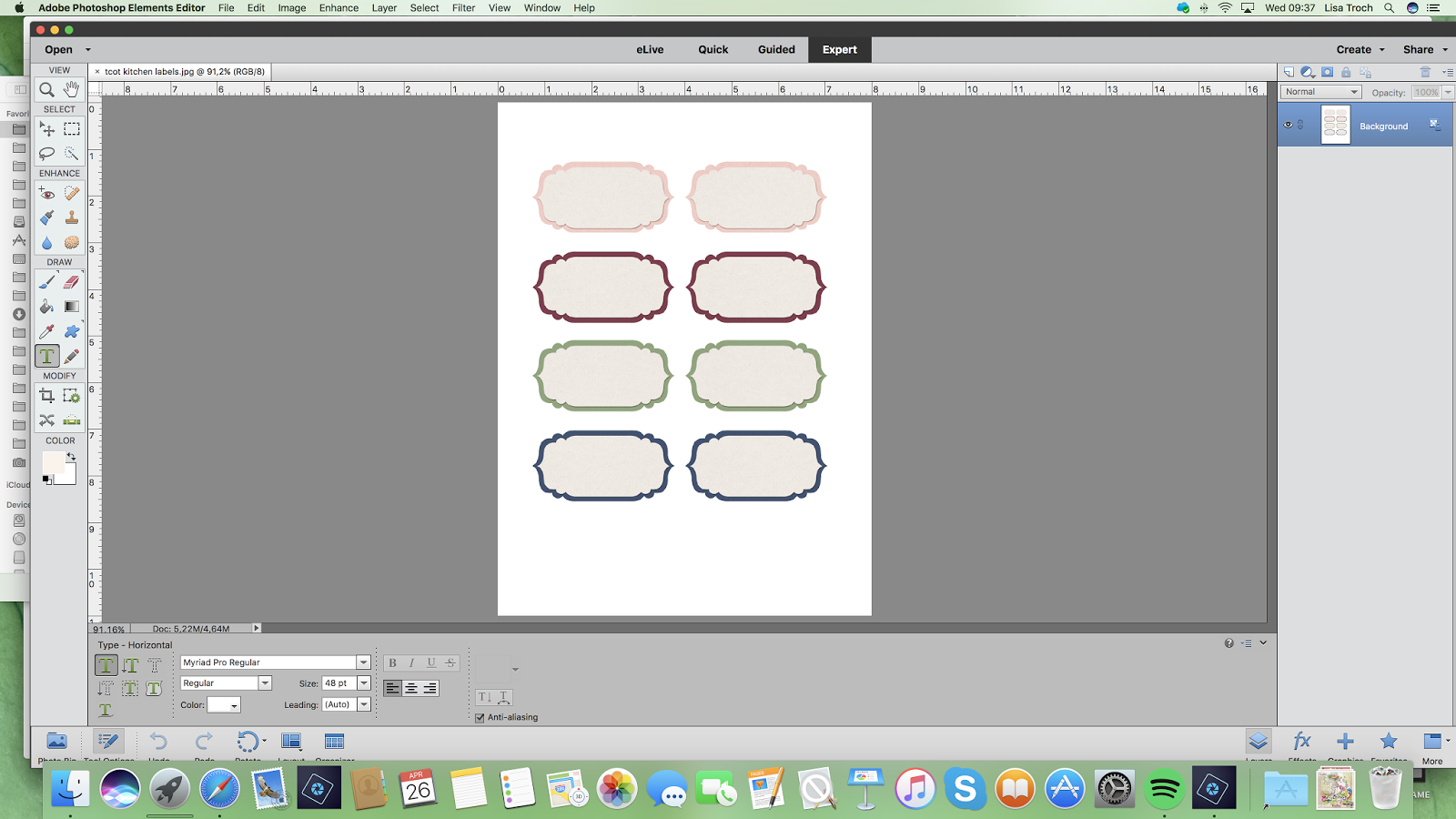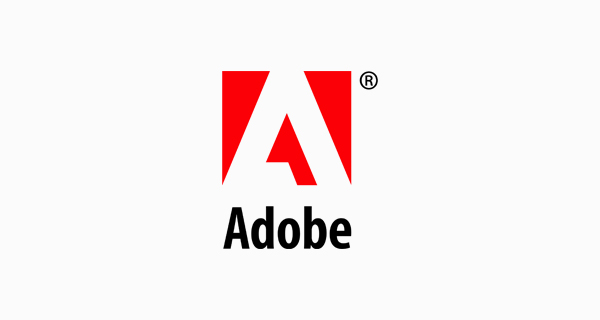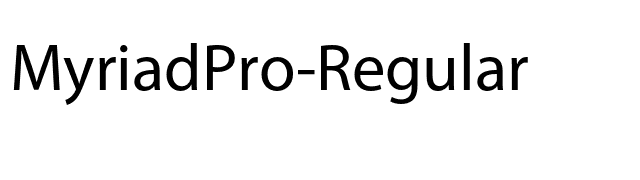
Adobe fonts is the easiest way to bring great type into your workflow wherever you are. Myriad pro regular font 178749 views 47863 downloads file name. A sans serif typeface with 40 styles available from adobe fonts for sync and web use. A sans serif typeface with 40 styles available from adobe fonts for sync and web use.
Explore myriad designed by carol twombly robert slimbach at adobe fonts.